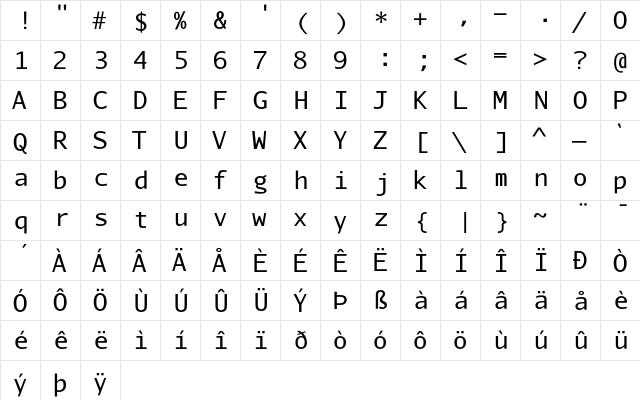
Aurulent Sans Mono Regular
Design Context for Aurulent Sans Mono Typeface
Aurulent Sans Mono brings the precise, column-aligned rhythm of monospaced typography to designs that value technical clarity and systematic order.
Well-suited to data-driven dashboards, coding tutorials, and any design that wants to reference the world of programming.
Pro Tip: Use Aurulent Sans Mono with slightly increased line-height for extended reading — fixed-width spacing can feel dense in longer passages without extra breathing room.